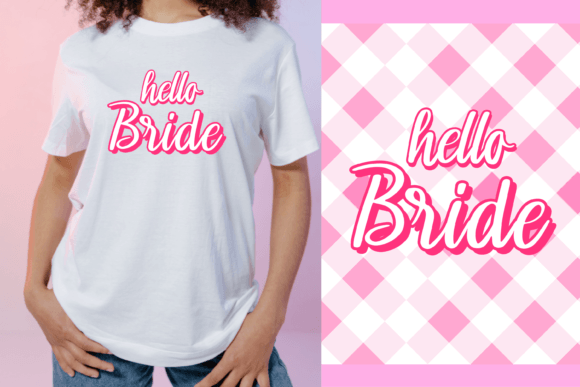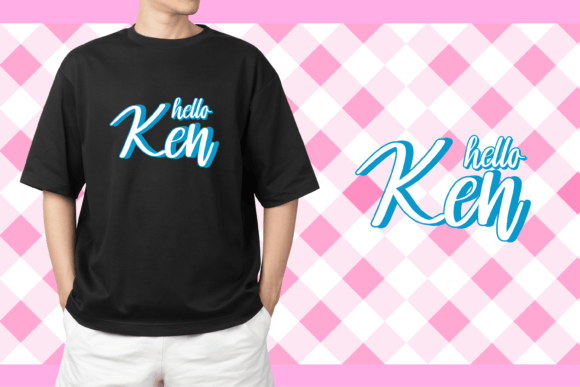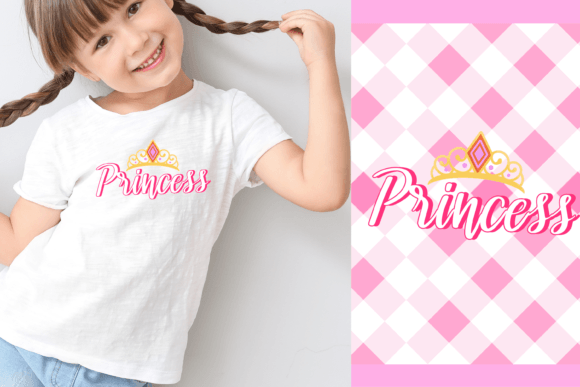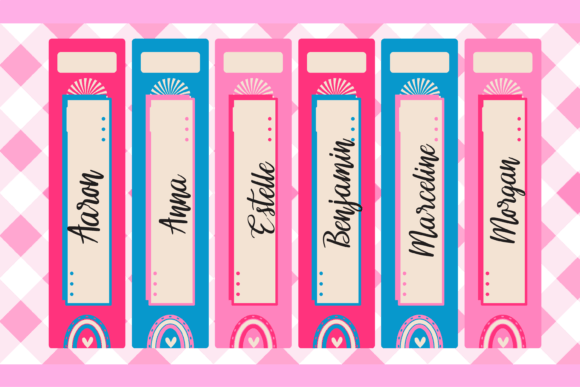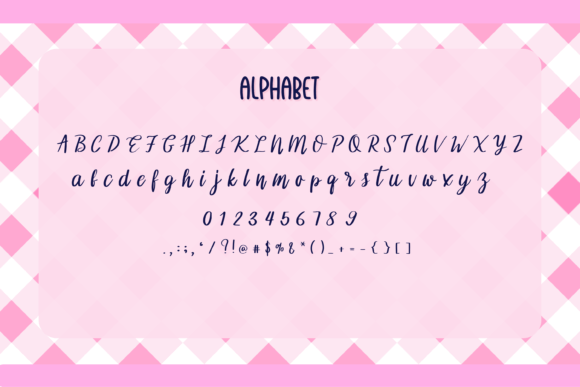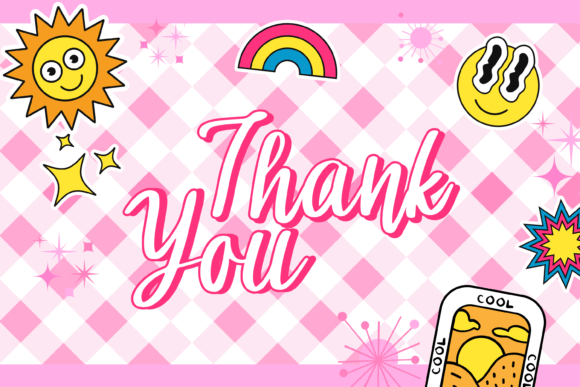
Introduction to Ken Font
Remember that moment when you’re brainstorming ideas for your next creative project and you stumble upon the perfect font to match your vision? For many designers, that moment is a game-changer. It’s the difference between a good design and a great one. And for those who’ve discovered the Ken Font, that moment is even more special.
Ken Font is more than just a design resource – it’s a tool that can elevate your work to the next level. With its fun and playful style, it’s perfect for posters, flyers, social media, and so much more. One of the best things about Ken Font is its versatility, making it a valuable addition to any designer’s toolkit.
What sets Ken Font apart is its high-quality design, which is available for free download with a transparent background, making it easy to integrate into your projects. Whether you’re a seasoned pro or just starting out, Ken Font is definitely worth checking out.
Key Features of Ken Font
- High-quality, free downloadable font perfect for creative projects and design resources.
- Comes in a single weight with a medium line height, ideal for body text and headings in various creative projects.
- Designed to be highly legible at resolutions up to 300 DPI, making it suitable for print and digital applications.
- Includes a comprehensive character set, supporting a wide range of languages and special characters.
Honest Review: Ken Font
I recently had the opportunity to work with Ken Font, a free design resource that has been making waves in the creative community. I have to say, I was quite impressed with its capabilities and versatility.
- ✨ High-quality font options: Ken Font offers a wide range of stylish and modern fonts that are perfect for creative projects.
- ✨ Transparent background: This feature allows for seamless integration with any design element, making it a great choice for graphic designers.
- ⚠️ Limited customization options: While Ken Font is versatile, it may not offer the level of customization that some designers are looking for.
Overall, I’m impressed with Ken Font and its potential to enhance creative projects. While it may not be perfect, it’s a great starting point for designers looking for a high-quality, free design resource.
Ken Font: A Free Design Resource
Tips for Getting the Most Out of Ken Font
Use Ken Font with a transparent background to create a clean and minimalist design. Experiment with different font sizes and colors to add depth and visual interest to your project.
Ken Font is perfect for creative projects that require a unique and stylish look, such as:
– Blog posts and articles
– Presentations and documents
– Brochures and flyers
Ken Font is a free download that can be used in a variety of design projects, making it a valuable resource for designers and non-designers alike.
Alternatives to Ken Font
Compared to Ken Font, Montserrat has a more geometric and industrial feel. It is best used for headings and titles in creative projects.